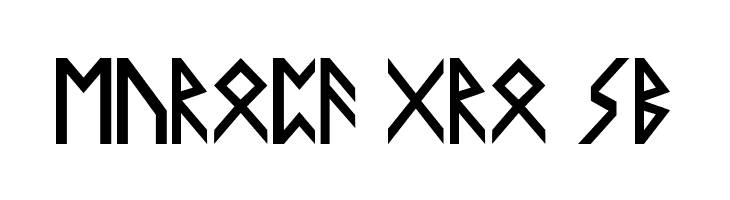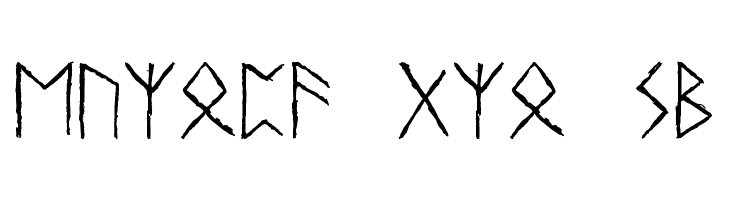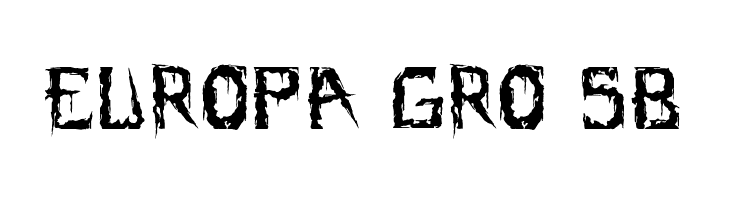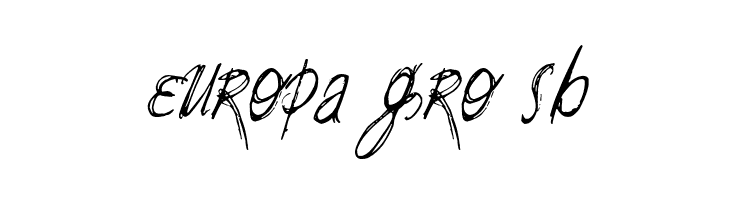
A haunting, branch-like font with jagged, eerie strokes.
A bold, angular font with a fantasy-inspired geometric style.
A decorative, distressed font with an eerie, horror-themed style.
A sharp, angular font with a mythical, rune-like appearance.
A bold, geometric font with tribal-inspired embellishments.
A bold, runic-inspired font with sharp angles and geometric shapes.
A runic-inspired font with angular, linear characters evoking historical mysticism.
A jagged, distressed font with sharp, irregular edges for dramatic designs.
A decorative, vine-like font with gothic and whimsical elements.